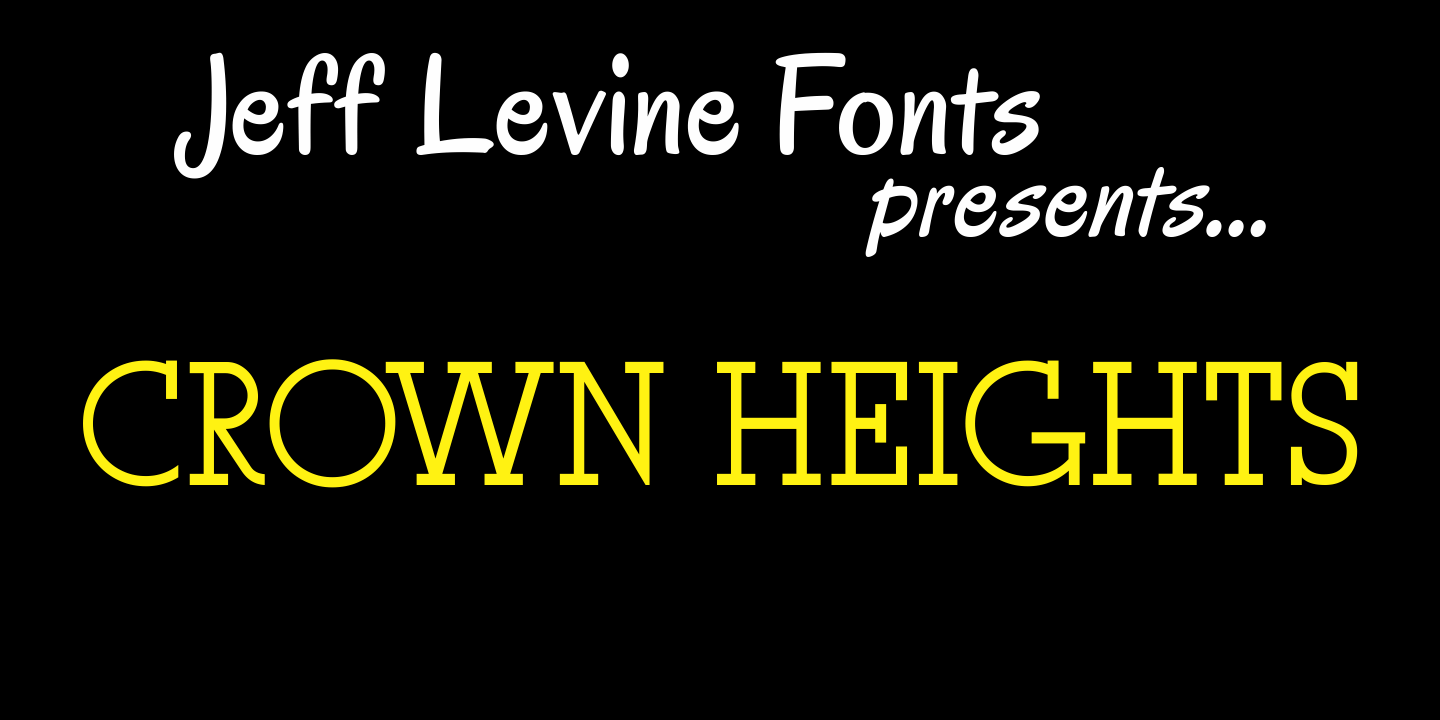
Crown Heights
Named for his childhood neighborhood in Brooklyn, NY, Jeff Levine's Crown Heights JNL is a lightline all-caps titling font excellent for short words or phrases. Its inspiration is remotely based on the symmetry of earlier designs such as Beton and Stymie.